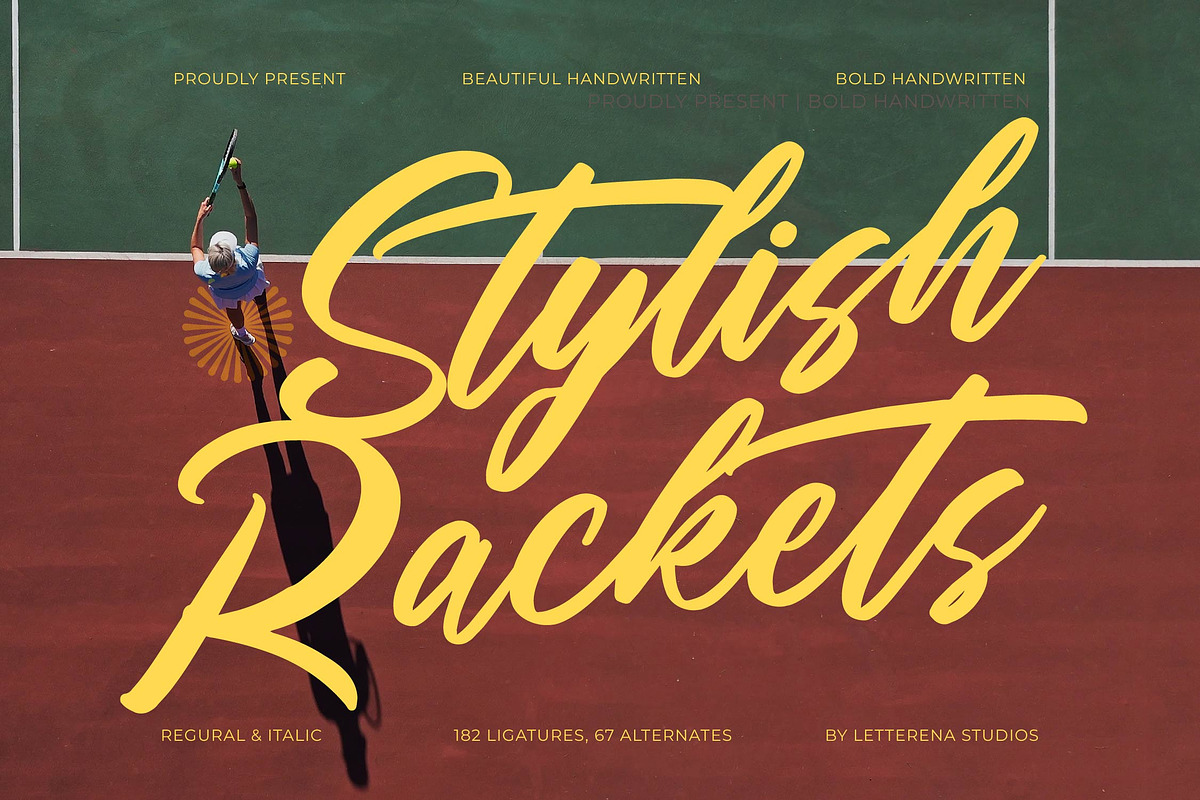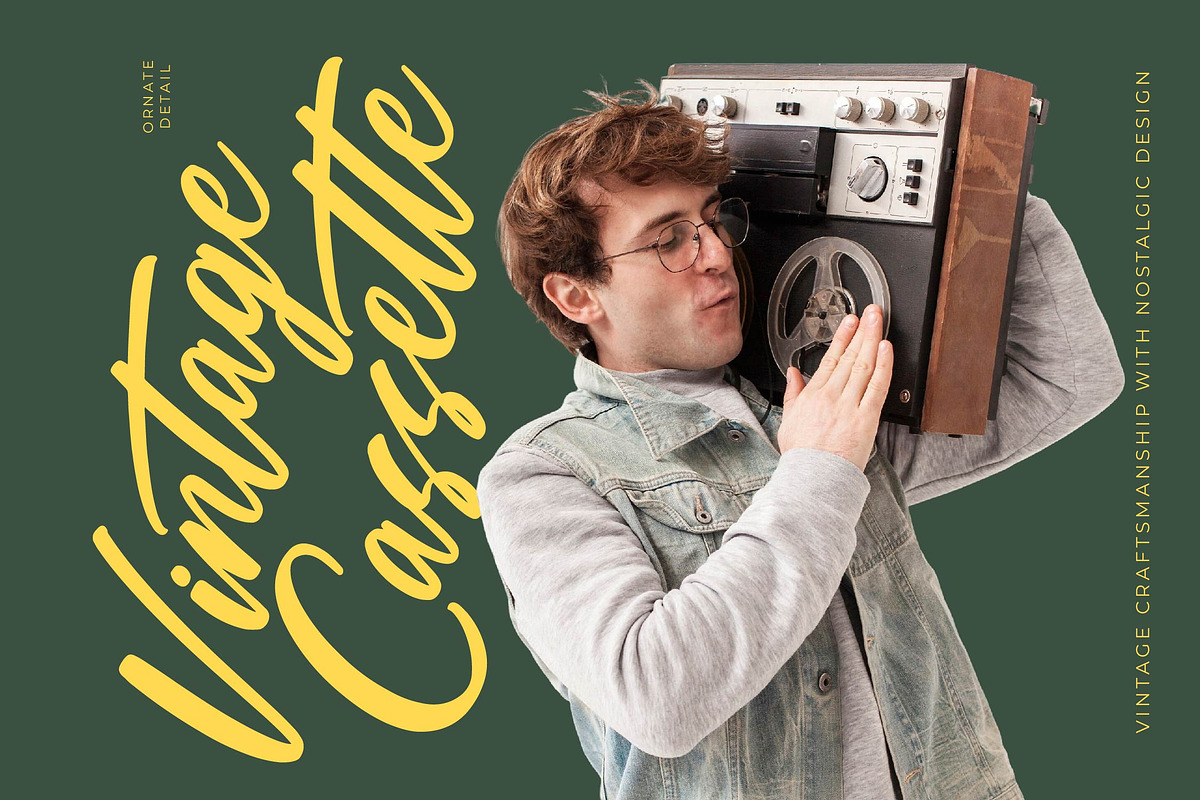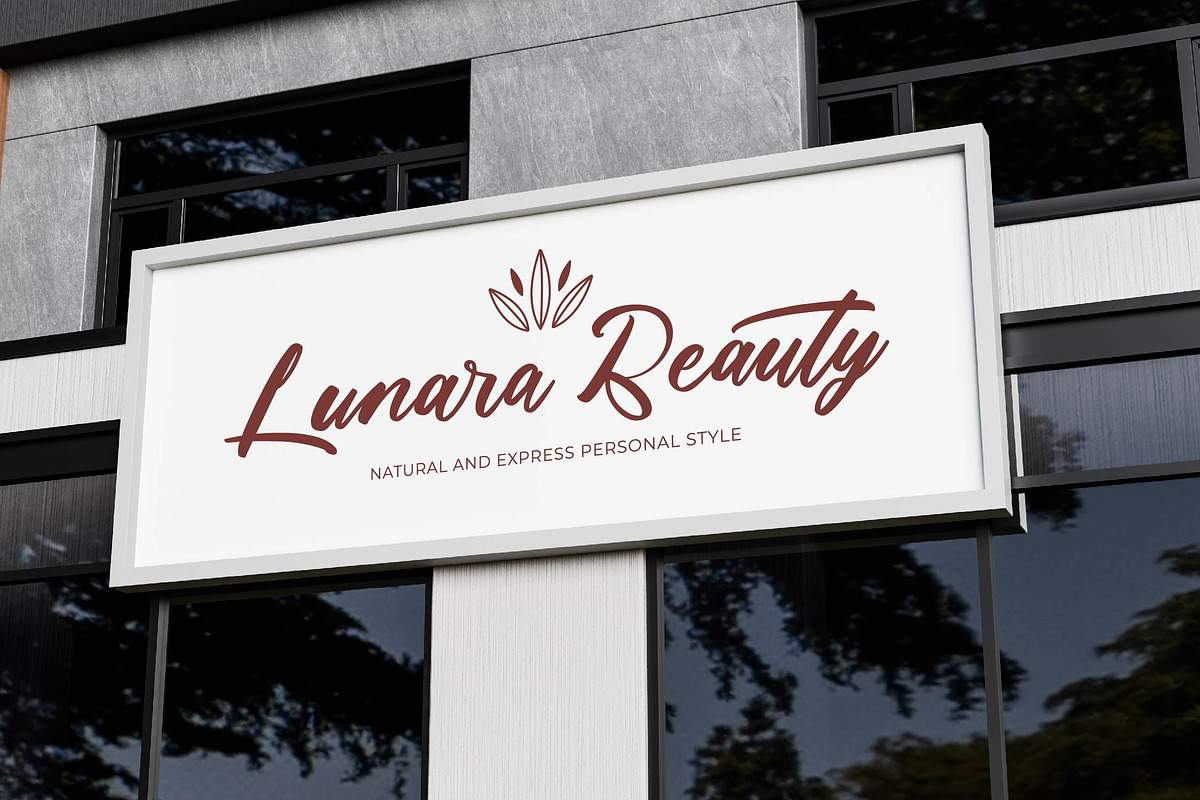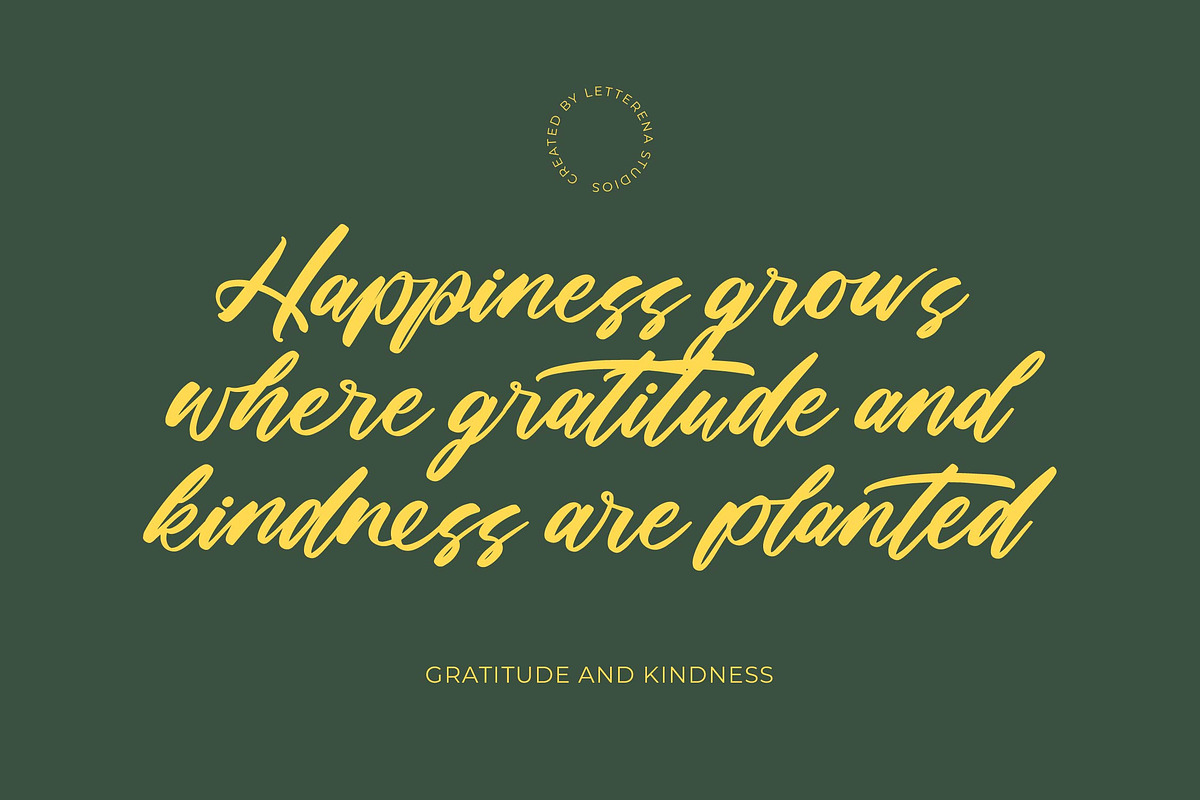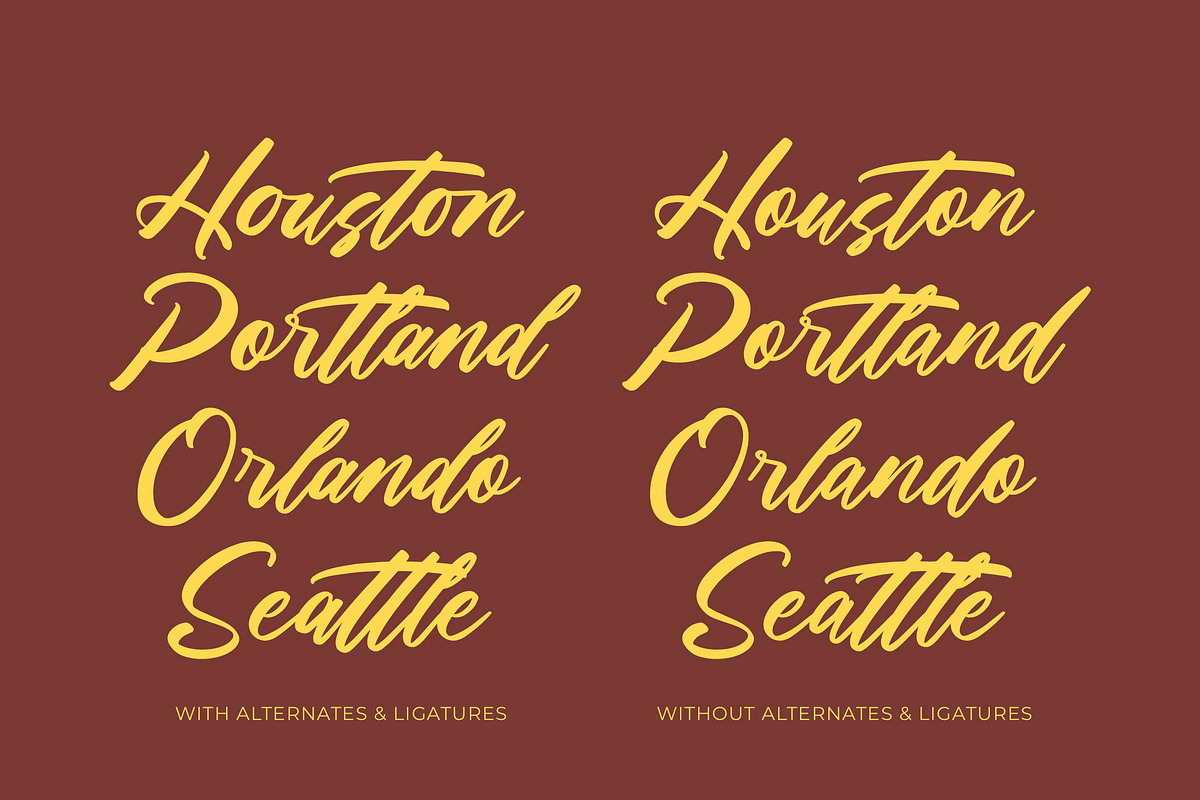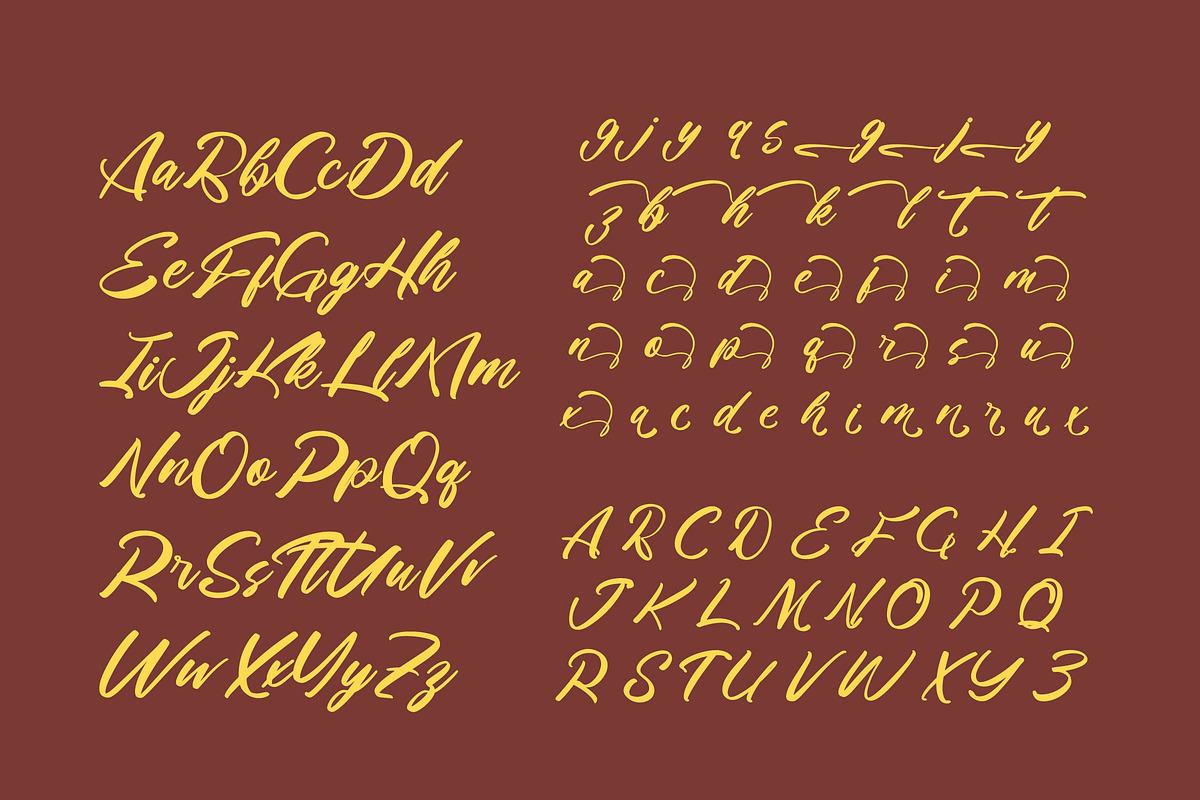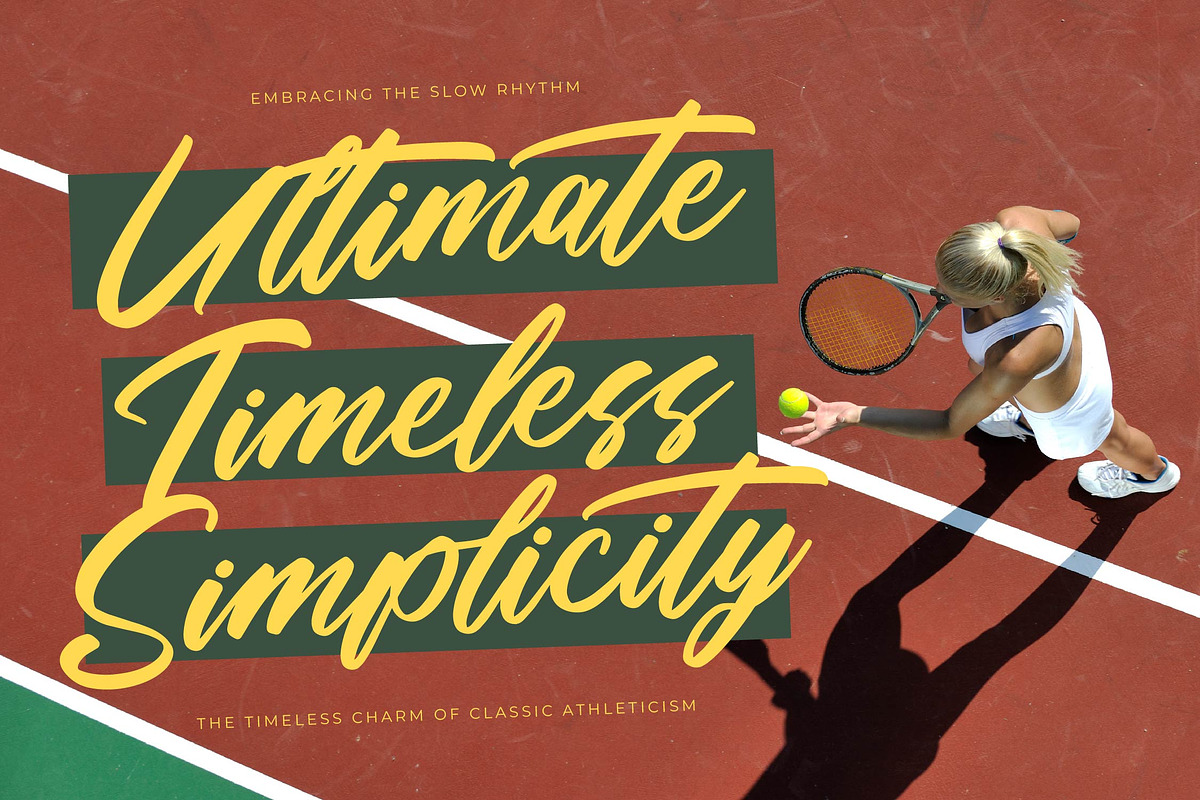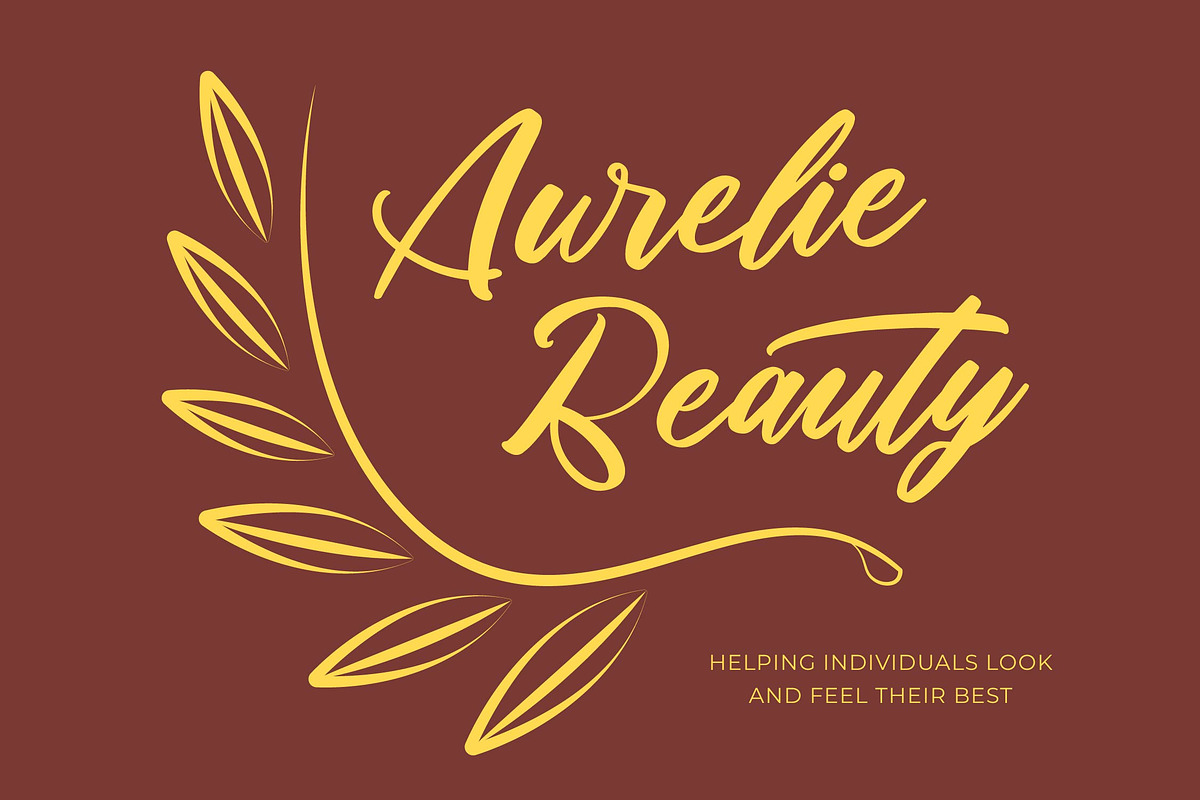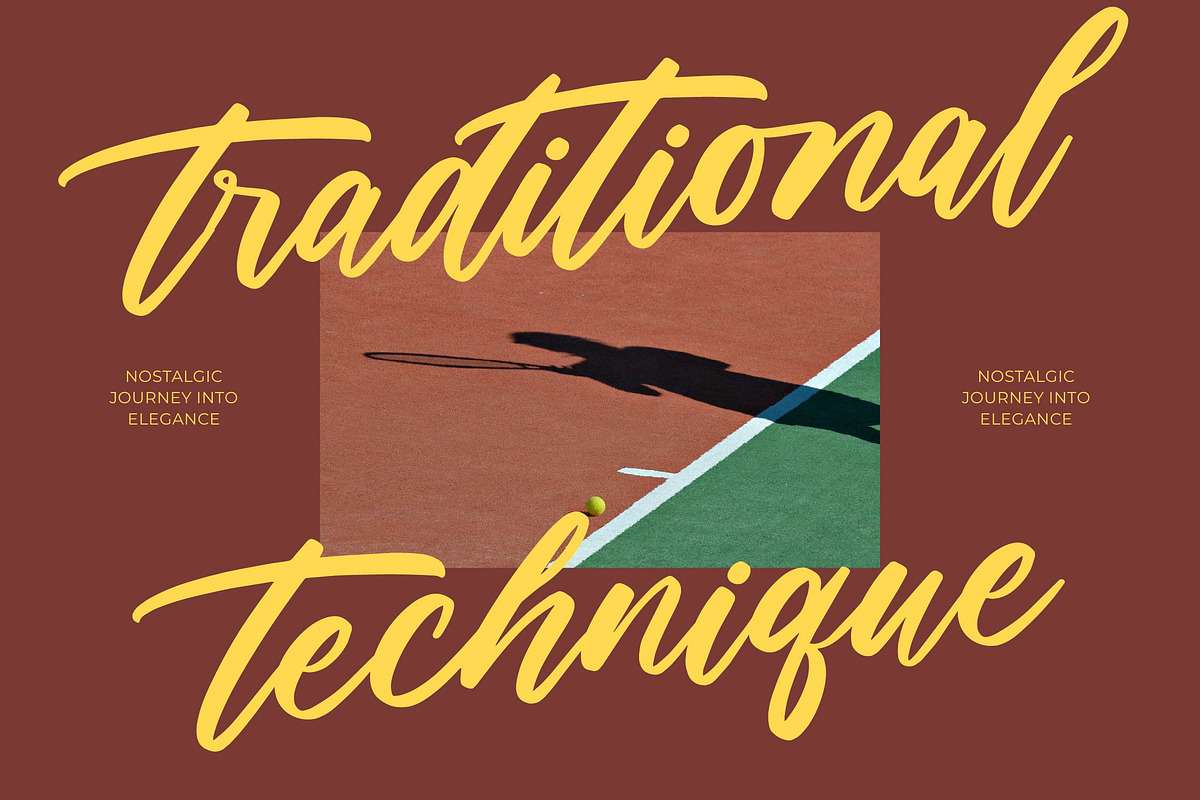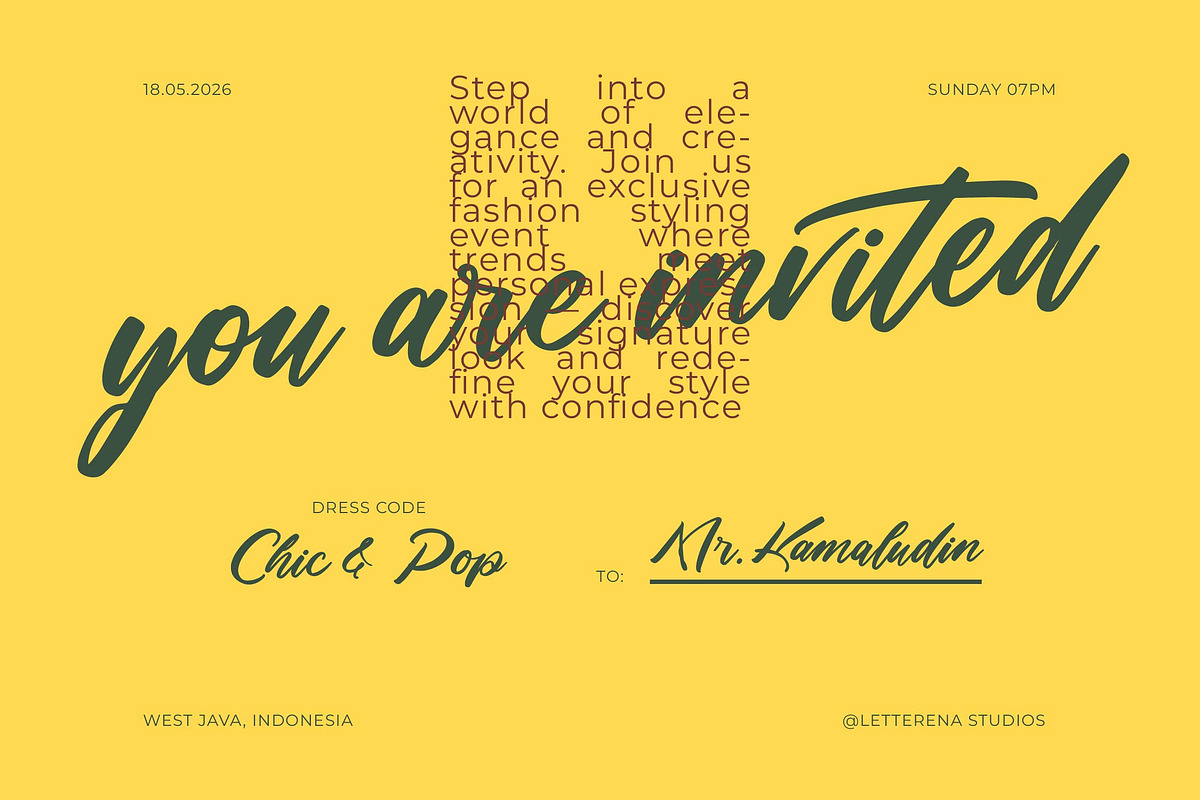
Stylish Rackets - Beautiful Handwrit
Stylish Rackets - Beautiful Handwritten Font, Stylish Rackets is a bold handwritten brush font with a confident and energetic feel. Featuring 182 ligatures and 67 alternates in both regular and italic styles, it delivers a smooth and dynamic stroke texture that adds a modern handwritten touch. Perfect for branding, posters, apparel, packaging, and social media graphics, Stylish Rackets combines expressive brushwork with contemporary style — ideal for designs that need bold personality and movement.